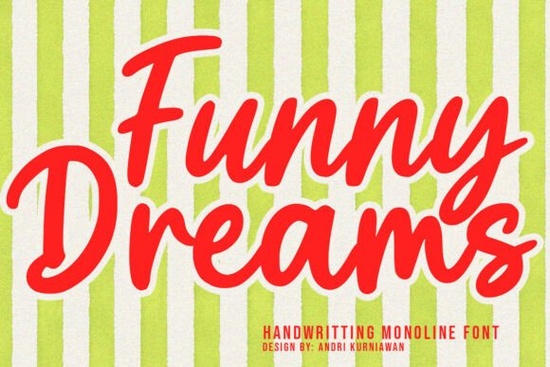
When you're looking for a font that brings a smile and a touch of whimsy to your designs, Funny Dreams Font is a fantastic choice. This cheerful and playful handwritten monoline font is perfect for adding warmth and charm to any project. Whether you're designing for children's products, playful branding, or creative craft projects, Funny Dreams Font delivers a friendly and inviting look with excellent readability.
Why Choose Funny Dreams Font?
Funny Dreams Font stands out with its smooth flowing strokes, rounded terminals, and natural hand-drawn appearance. This combination makes it ideal for a wide range of design applications. The bold monoline construction and lively letterforms give it a modern yet retro appeal, making it versatile for both digital and print projects.
Perfect for Children's Products and Playful Branding
One of the standout features of Funny Dreams Font is its suitability for children's products and playful branding. The fun curves and whimsical character make it an excellent choice for creating engaging and memorable visuals. Whether you're designing a children's book cover, a playful logo, or packaging for a kids' product, this font adds a relaxed and energetic touch that resonates with young audiences.
Versatile for Various Design Projects
Beyond children's products, Funny Dreams Font is incredibly versatile. It works well for:
- Packaging design
- Social media content
- Posters and advertising
- T-shirt and merchandise design
- Greeting cards and invitations
- Craft and DIY projects
- Quotes and typography art
- Fun editorial layouts
The authentic handwritten style of Funny Dreams Font adds a distinctive handcrafted feel to each of these applications, making your designs stand out effortlessly.
How to Use Funny Dreams Font in Your Designs
Incorporating Funny Dreams Font into your designs is straightforward. Here are some tips to get the most out of this versatile font:
- Choose the Right Context: Use Funny Dreams Font for projects where a playful and cheerful vibe is needed. It's perfect for children's books, birthday party invitations, and playful branding.
- Combine with Complementary Fonts: Pair Funny Dreams Font with more neutral or classic fonts to create a balanced and harmonious design. For example, you might use Magnolia Calligraphy Font for elegant touches or Melamine Font for a modern, clean look.
- Experiment with Colors: The bold and lively nature of Funny Dreams Font allows for creative color choices. Try using bright, vibrant colors to enhance the playful and energetic feel of your designs.
- Test Readability: While Funny Dreams Font is designed for excellent readability, always test it in different contexts to ensure it remains legible, especially for longer texts.
Comparing Funny Dreams Font with Other Handwritten Fonts
While there are many handwritten fonts available, Funny Dreams Font has a unique character that sets it apart. Here’s how it compares to a few other popular options:
- Aaksaraan Rouleur Font: Aaksaraan Rouleur Font offers a more elegant and refined handwritten style, suitable for formal and sophisticated designs. In contrast, Funny Dreams Font is more playful and casual, perfect for lighthearted and fun projects.
- Bellinda Modern Calligraphy Font: Bellinda Modern Calligraphy Font is known for its fluid and elegant script, ideal for wedding invitations and high-end branding. Funny Dreams Font, on the other hand, is more about bringing joy and creativity to your designs with its cheerful and whimsical style.
Where to Find Funny Dreams Font
You can find Funny Dreams Font and other high-quality fonts at Creative Fabrica. Creative Fabrica is a great resource for designers, crafters, and small businesses, offering a wide selection of fonts, graphics, and templates to help you bring your creative vision to life.
Final Thoughts
Funny Dreams Font is a delightful and versatile option for anyone looking to add a touch of cheer and creativity to their designs. Its playful and inviting style makes it a go-to choice for children's products, playful branding, and a variety of other creative projects. By following the tips and guidelines above, you can effectively incorporate Funny Dreams Font into your work and create memorable, joyful designs.